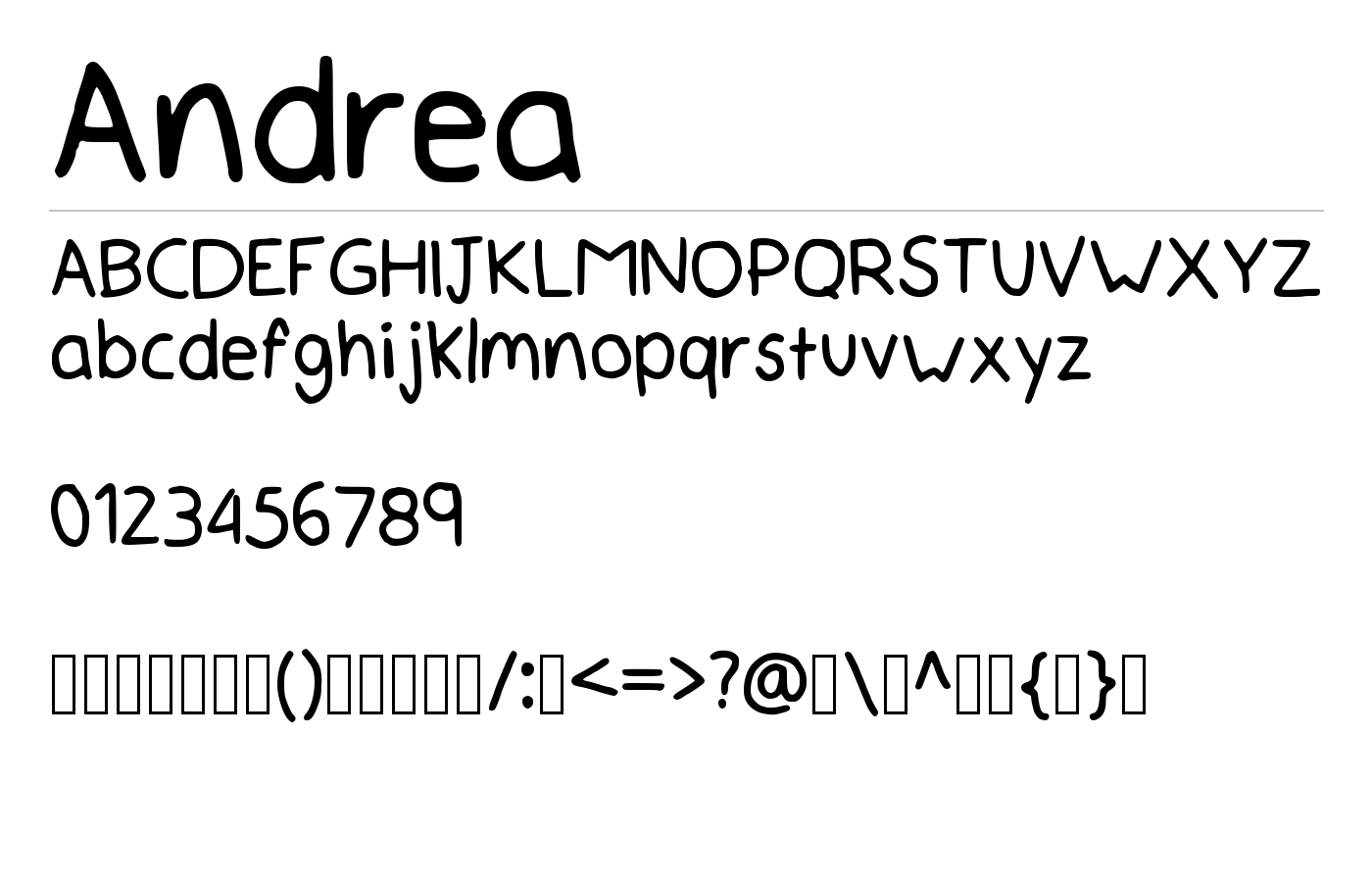
Andrea is a casual, hand-drawn sans serif font with a friendly and approachable feel. Its slightly irregular strokes and rounded shapes give it a playful, informal style, making it ideal for projects that want to convey warmth and creativity. This font works well for children's books, greeting cards, and lifestyle branding where an inviting and personal touch is desired.
Andrea Font